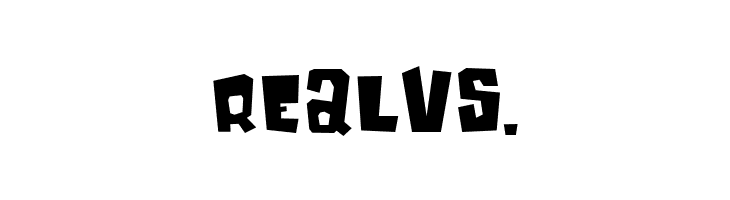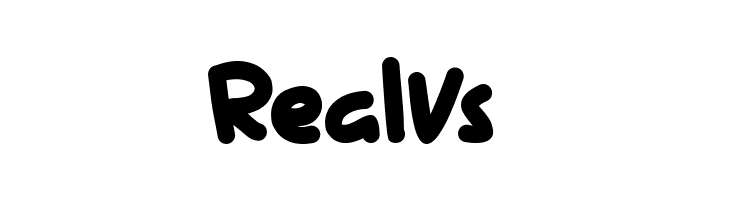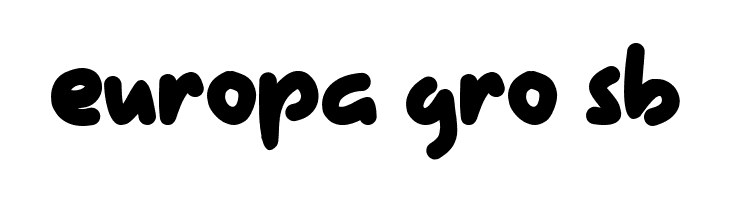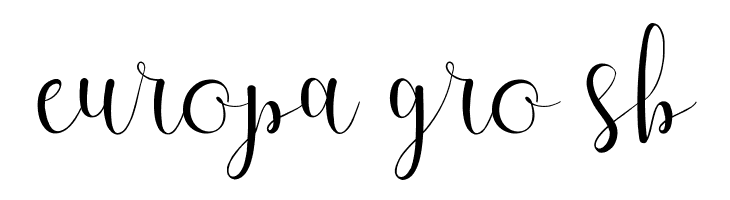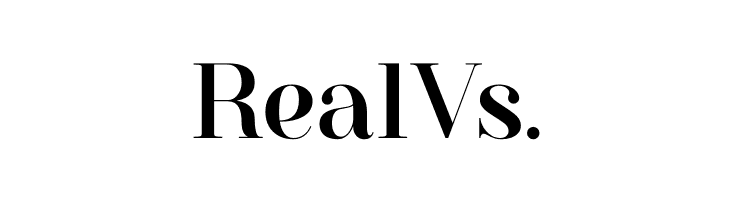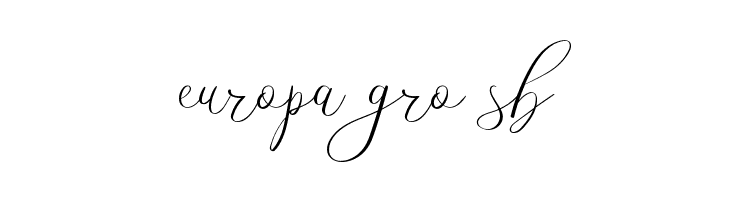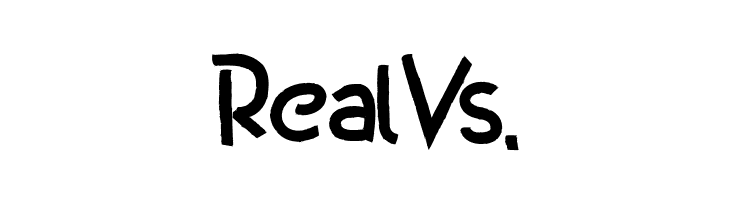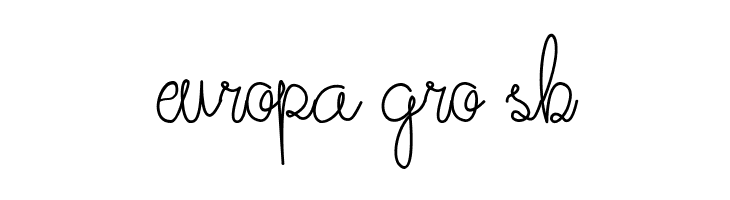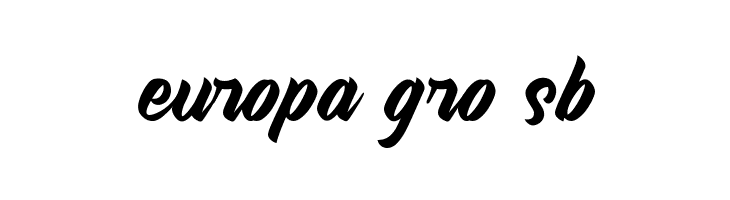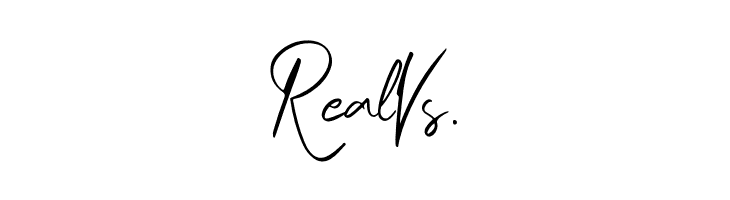
A fluid and expressive handwritten font with a casual elegance.
An elegant and decorative script font with flowing cursive letters and intricate flourishes.
A bold, dynamic handwritten font with thick strokes and playful character.
A modern, geometric font with clean lines and a minimalist style.
A bold, dynamic brush script with expressive, hand-painted strokes.
A bold, dynamic brush script font with expressive strokes and a hand-painted look.
An elegant and flowing script font with decorative loops and swashes.
A bold, modern geometric font ideal for impactful headlines and branding.
A bold, modern font with geometric lines and a sleek appearance.
A dynamic and fluid handwritten script font with elegant, flowing characters.
A bold, dynamic script font with flowing, cursive letterforms and elegant swashes.
A modern, elegant script font with flowing, cursive characters and sophisticated swashes.
Handwritten decorative font with artistic flair.
A bold, slab serif font with a classic Western style.
A pixelated, monospaced font with a retro digital aesthetic.
A classic serif font with modern elegance and sharp serifs.
Elegant serif font with high contrast and refined style.
A playful, bold font with rounded, hand-drawn strokes.
A lively, cursive script font with smooth, flowing strokes and elegant character connections.
A bold, distressed font with a vintage, hand-crafted look.
A dynamic handwritten font with fluid strokes and modern flair.
A whimsical script font with decorative loops and curls.
A sophisticated cursive script font with elegant, flowing strokes.
A flowing, cursive script font with elegant, connected characters.
A bold, 3D italic font with outlined characters and a dynamic style.
A bold, decorative 3D font with gothic influences and intricate detailing.
A bold, decorative blackletter-style font with intricate detailing.
A bold, italicized blackletter-style font with ornate, gothic elements.
A bold, condensed blackletter font with intricate details and a gothic aesthetic.
A bold, condensed, italic font with a gothic blackletter style.
A bold, blackletter-inspired font with ornate and intricate details.
A bold, blackletter-inspired font with high contrast and ornate details.